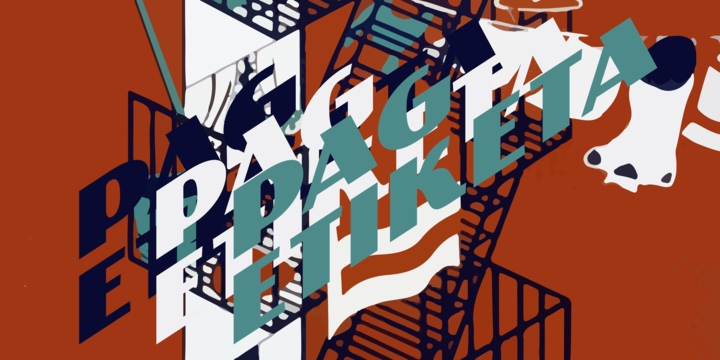
PAGEtiketa Font
PAGEtiketa Font is perfect for product labeling, packaging design, retail branding, consumer goods labels, barcode documentation, inventory systems, shipping materials, warehouse signage, product catalogs, supply chain communications, commercial packaging, and systematic retail identities.
What makes PAGEtiketa Font exciting is its systematic clarity that delivers maximum legibility and professional consistency across all labeling and identification applications through precisely engineered letterforms. This essential typeface embodies the foundation of commercial communication, combining technical precision with retail-friendly aesthetics that ensure optimal readability in scanning systems, inventory management, and consumer product applications. The font's systematic approach and optimized character spacing make it ideal for organizations requiring consistent identification standards and reliable performance across diverse labeling environments. Its practical personality ensures maximum functionality while maintaining the professional appearance essential for retail and commercial applications.
The PAGEtiketa Font family includes light, regular, medium, and bold weights, featuring systematic alternates, commercial ligatures, and labeling-optimized design elements. The character set incorporates barcode-friendly numerals, commercial symbols, and retail punctuation marks that enhance the font's labeling character and provide designers with comprehensive identification typography solutions for systematic applications.
Whether you're developing product identification systems, creating retail labeling materials, or designing commercial packaging communications, PAGEtiketa Font Free Download provides the systematic reliability your labeling projects require. This premium typeface excels in environments where consistency and scanning compatibility are fundamental to operational efficiency and inventory management success. The font's commercial qualities work magnificently across product packaging, retail signage, and digital inventory systems, making it an indispensable asset for designers serving retail and commercial markets. Manufacturing companies and retail organizations choose this font for its ability to communicate systematically while maintaining perfect compatibility with automated scanning and identification systems. The comprehensive character set supports multiple languages and includes specialized commercial symbols, expanding its versatility for international retail applications and multilingual labeling communications. Professional designers appreciate its optimized design for commercial applications and consistent performance across all identification systems. When you implement this exceptional typeface in your commercial communications, you're selecting a typography solution that ensures systematic efficiency and retail reliability, ensuring your labeling systems perform flawlessly while maintaining the professional credibility essential for success in competitive retail markets and commercial industries that depend on accurate identification, efficient inventory management, and reliable product labeling for operational excellence and consumer satisfaction.